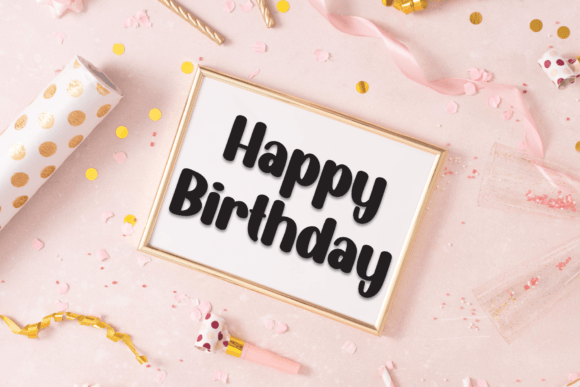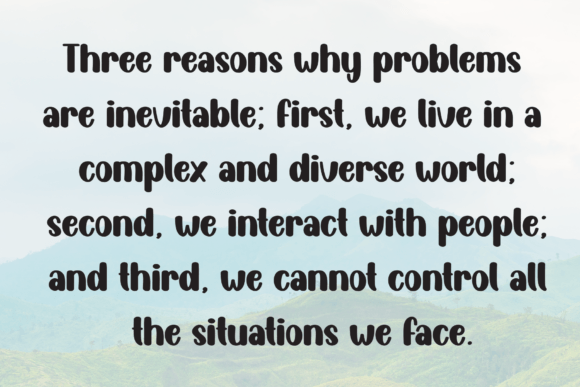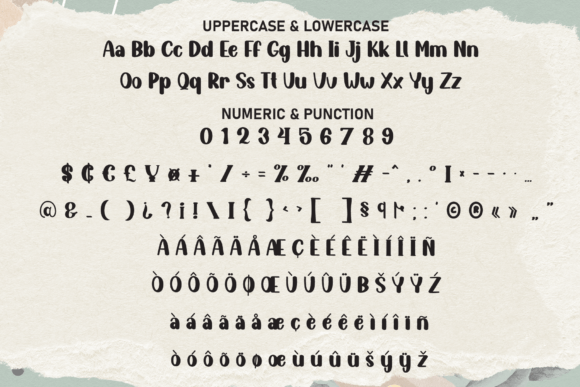
Introduction to Montage Font
Have you ever stumbled upon a design that makes you feel like you’re sipping coffee on a lazy Sunday morning? That’s exactly the kind of vibe the Montage Font embodies. This casual handwritten font is a treasure trove of natural, flowing strokes that exude a relaxed and friendly atmosphere, making it perfect for personal projects, social media, and invitations.
Whether you’re working on a creative project or simply need a design resource that adds a touch of warmth and authenticity, the Montage Font is an invaluable asset. Its effortless style makes it easy to incorporate into any design, and its high quality ensures that it will stand out without overpowering the content. With a transparent background, this font is the perfect addition to any design, and the best part? It’s available for free download, making it an accessible and valuable resource for designers.
Key Features of Montage Font
- High-quality, professional font ideal for creative projects and design resources.
- Features a transparent background, allowing for easy customization and blending with other design elements.
- Includes a wide range of glyphs and characters, making it suitable for various languages and design applications.
- Unique, modern design style that sets it apart from other fonts, perfect for creative projects and branding.
Honest Review: Montage Font
As a designer, I’m always on the lookout for high-quality fonts that can elevate my creative projects. Recently, I stumbled upon the Montage Font, and I must say, it’s been a game-changer. ✨ The font’s modern and sleek design makes it perfect for any project that requires a touch of sophistication.
The Montage Font offers a transparent background, which allows for seamless integration with any design resource. Whether you’re working on a logo, business card, or social media graphics, this font is sure to impress.
Here are some of the features that I love about the Montage Font:
- Transparent background for easy integration with other design resources
However, I do have one minor issue with the Montage Font: it only comes in a limited number of weights, which can make it challenging to create a consistent design. ⚠️
Overall, I’m thoroughly impressed with the Montage Font. It’s a versatile and high-quality design resource that’s sure to elevate any creative project. If you’re looking for a new font to add to your design library, I highly recommend giving the Montage Font a try.
Tips for Getting the Most Out of Montage Font
For optimal results, use Montage Font on a transparent background to create a seamless design. You can also experiment with different font sizes and colors to add depth and visual interest to your creative project.
Montage Font is a versatile design resource that can be used in a variety of creative projects, including infographics, presentations, and social media graphics. It’s also a great choice for designers looking for a high-quality font with a transparent background for free download.